18 Halloween Fonts for the Best Spooky Season Designs
Whether you want to create social media posts, or spooky posters for your party - here are the best Halloween fonts to use this season.
Creepy and horror Halloween fonts
What’s a spooky Halloween with no horror references? These fonts look like they are taken straight out of a classic slasher poster, or an arthouse indie horror film.
1. October Crow (free for commercial use)
If Halloween aesthetic to you means the 80s and 90s horror movies, gothic lore and spider webs, this free Halloween font in all uppercase might do the trick.
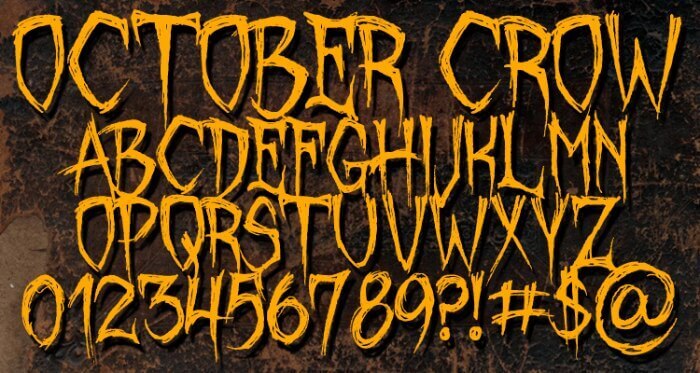
2. Halloween Too (free for personal use)
The dripping blood text effect on this Halloween font makes it a perfect fit for horror-themed designs. This handwritten font also comes in uppercase and lowercase, so you can experiment with it more. If you want something similar, but al little less spooky, be sure to check out our list of graffiti fonts.
3. Goat (free for commercial use)
The beautifully arched capital letters that are based on Gothic architecture are unlike any others on this list, making Goat one of the most high-quality free Halloween fonts.
4. Earwig Factory (free for commercial use)
Earwig Factory is a jumbled alphabet mounted on background cards, resembling ransom letters in mystery thrillers.
5. Nightmare 5 (free for personal use)
This Halloween font has a retro poster design-like aesthetic, with condensed spooky lettering and a slight texture.
6. Creepster (free)
Creepster font is a free Halloween font that’s a lot more versatile than it looks. It could be a great retro font. Or pair it with a really sinister design to make it extra spooky.
Whimsical fonts that will spruce up your Halloween designs
If you need to appeal to a more family targeted audience or nostalgics that would rather watch Tim Burton films instead of horrors, here are some quirky and magical fonts to use.
7. Alice in Wonderland (free for personal use)
It might not exactly be a Halloween font, but if you’ve read Alice in Wonderland, you’re well aware there’s enough jump scares and whimsical magic in it.
8. Burton’s Nightmare (free for commercial use)
Yet another Burton-inspired font, this time from “Nightmare Before Christmas”. This playful calligraphy font is elegant, yet decorative. It comes in both uppercase and lowercase, so you can play with it in many different variations.
9. Billy Witch (purchase only)
Billy Witch is one of the best Halloween fonts out there. This swirly serif font has two variations: regular and italic, comes with a few formats (OTF, TTF and WOFF) and additional glyphs.
10. Nightmare Pumpkins (purchase only)
This bulky and wavy font is inspired by the spooky season, and perfect to apply on t-shirt design, logos, posters, prints, etc. It has multi-language support, so those of you who are looking for a fun and decorative Halloween font in another alphabet, grab this one.
11. HalloWitchZ (free for personal use)
This unique display font can fit even beyond the seasonal designs, but also on magic and fiction books covers. The varying sizes and bulkiness of each letter make HalloWitchZ playful and unpredictable.
Distorted fonts
If you want an unusual and more minimalist font family than the ones we already mentioned, you can decide to go with a distorted or glitchy font. This style makes for a perfect spooky font without being cartoonish.
12. Bad Signal (free for personal use)
This cool glitchy font is perfect to use on a t-shirt, sticker, poster, or motion graphics. It is simple and sans-serif, so apart from the distorted effect, it is a classic and versatile typeface.
13. Marola (free for commercial use)
If you want a sort of a three-dimensional effect in your designs, Marola is a font that will create an illusion of waviness. It might not necessarily be a typical Halloween font, but it is sort of spooky.
14. Glitch City (free for personal use)
If your idea of a thematic spooky Halloween somehow merges with a cyberpunk/sci-fi aesthetic, Glitch City is a font straight out of this niche genre. It would also look amazing in motion.
15. Doctor Punk (free for personal use)
Doctor Punk might not be a classic horror font. Still, as it resembles the style of ransom, it’ll surely bring a bit of spook to your designs.
Textured and retro spooky fonts
What is a good Halloween font? Texture can turn even the simplest font into perfect Halloween typography!
16. Face Your Fears (free for personal use)
If you want a really spooky font, Face Your Fears will do exactly that. This textured font looks like writing in blood.
17. Furgatorio (free for commercial use)
Furgatorio reminds me of ancient ruin scriptures and old puzzle games. Even the different styles of the font family are named after classic horror films (Annabelle, Chucky, Nosferatu, Frankenstein…).